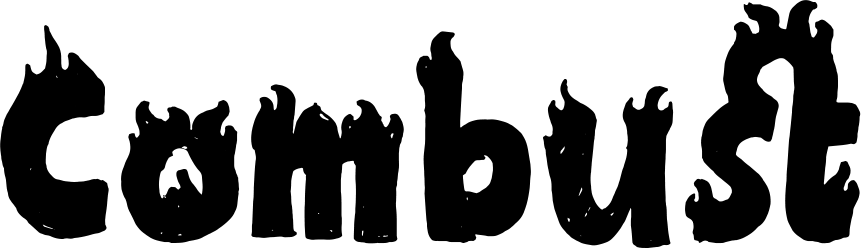
Combust Font
If you are after a fire font to ramp up your text-based layouts, you can’t go wrong with this one at all. Combust comes with bold and fiery characters and gives an exciting feeling. This case can be practical for video games, movies, posters, and so on. Don’t waste time and click on the download button now. For more, dive deeper into our ever-growing library.
Combust is a modern playful display font with fire.
The font is thick so it can still be read even if there is a burning fire, suitable for various purposes, poster design, for video game or movie titles, or promotions on social media.Full Version Download Here :